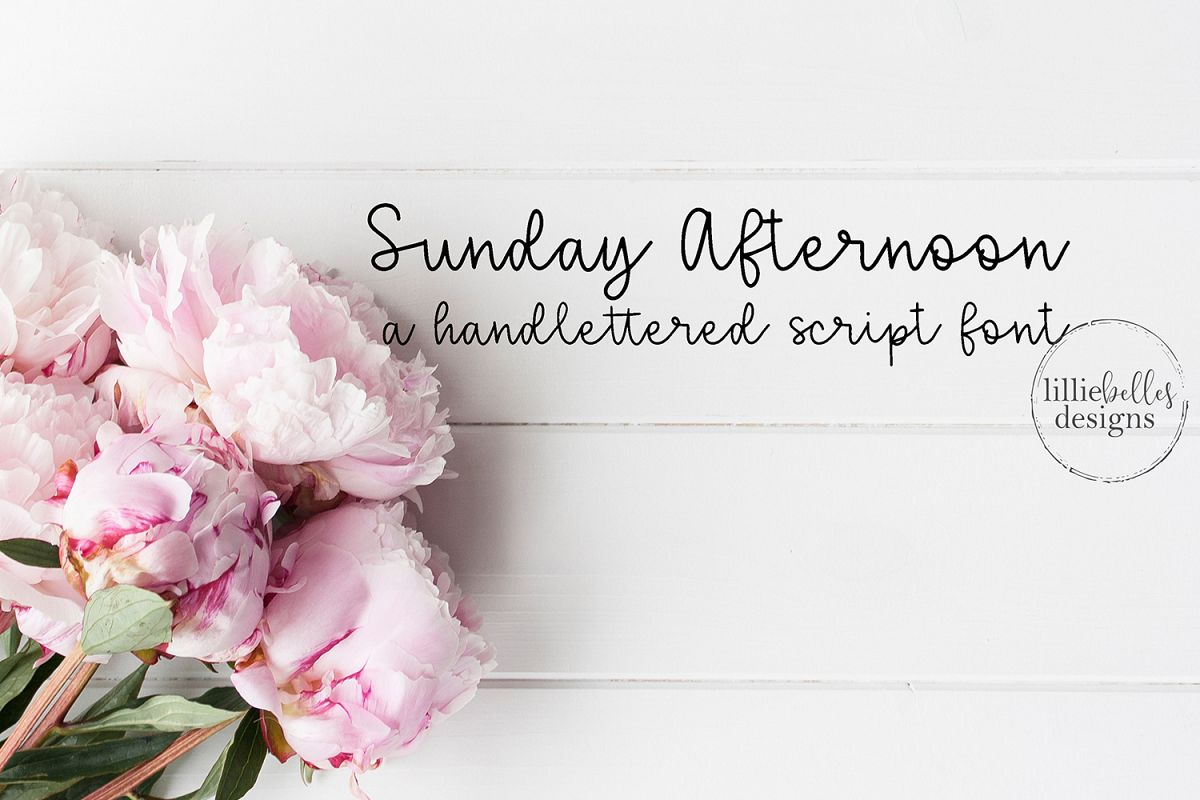
Sunday Afternoon Font
Sunday Afternoon is a laid back and relaxed font - just like a Sunday Afternoon.  This hand lettered font is perfect for adding casual handwriting to your projects.
Font features include:
•  All script uppercase and lowercase
•  Numbers and punctuation
•  Standard ligatures